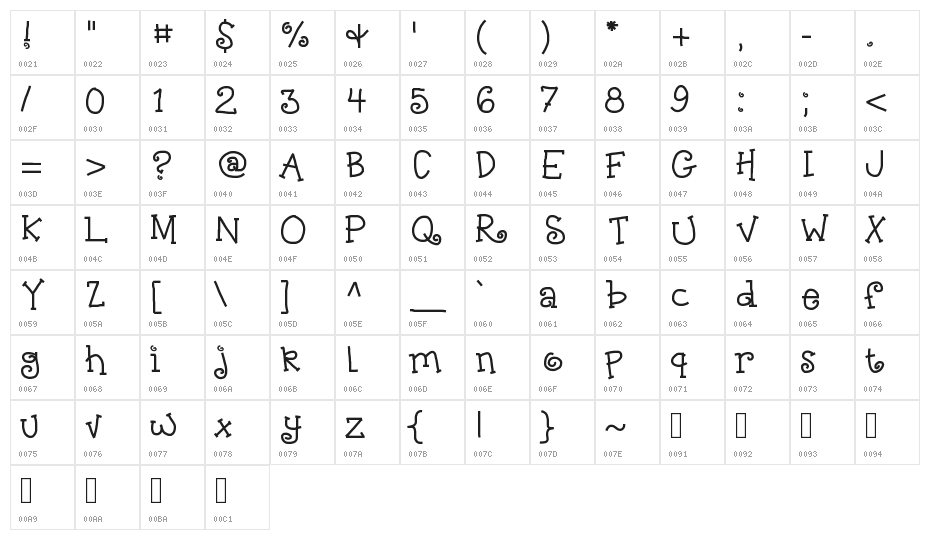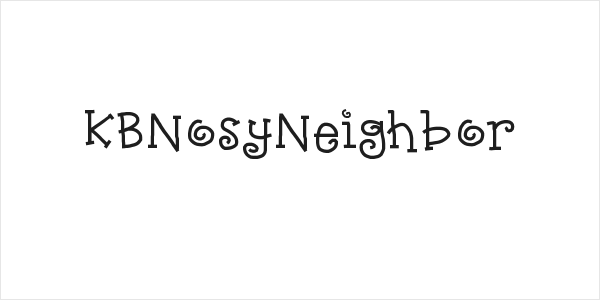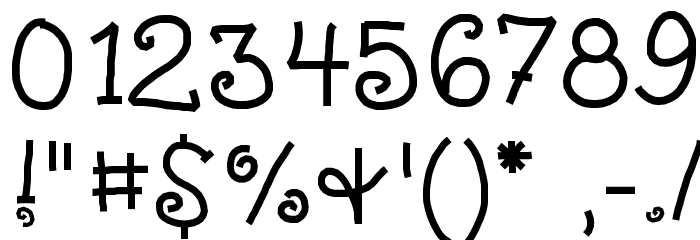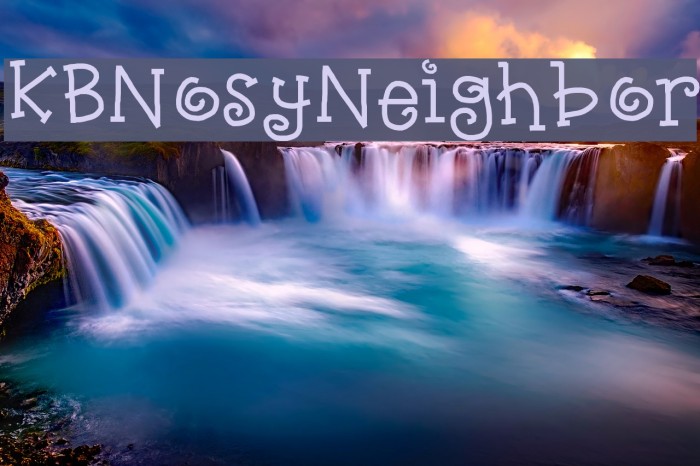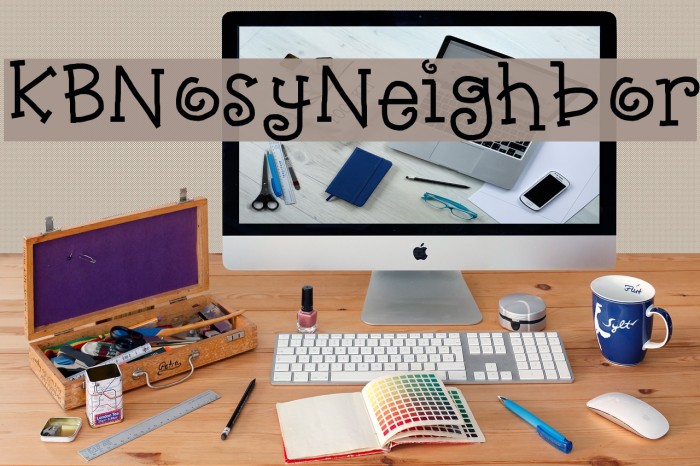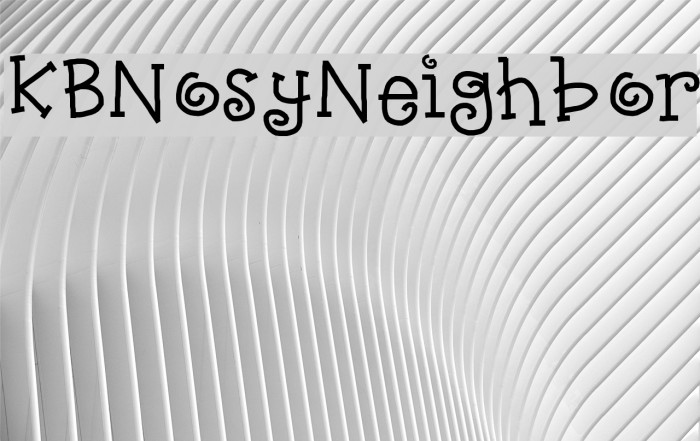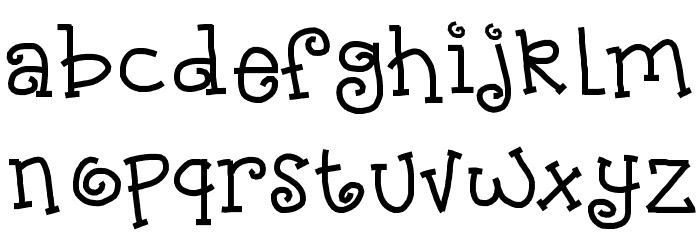
KBNosyNeighbor Font
KBNosyNeighbor Description
This playful and whimsical font features a hand-drawn style with unique, quirky elements. The uppercase letters have a slightly uneven baseline, giving them a lively and animated appearance. The lowercase letters incorporate playful curls and loops, adding to the font's charm. Numbers are bold and maintain the same playful aesthetic, while special characters are creatively designed, enhancing the font's overall fun and informal vibe. The font's distinct personality makes it ideal for projects that require a touch of humor and creativity.
| Use Case | Logos, Posters, Greeting Cards |
| Proposed Projects | Perfect for children's books, playful branding, greeting cards, and creative posters. |